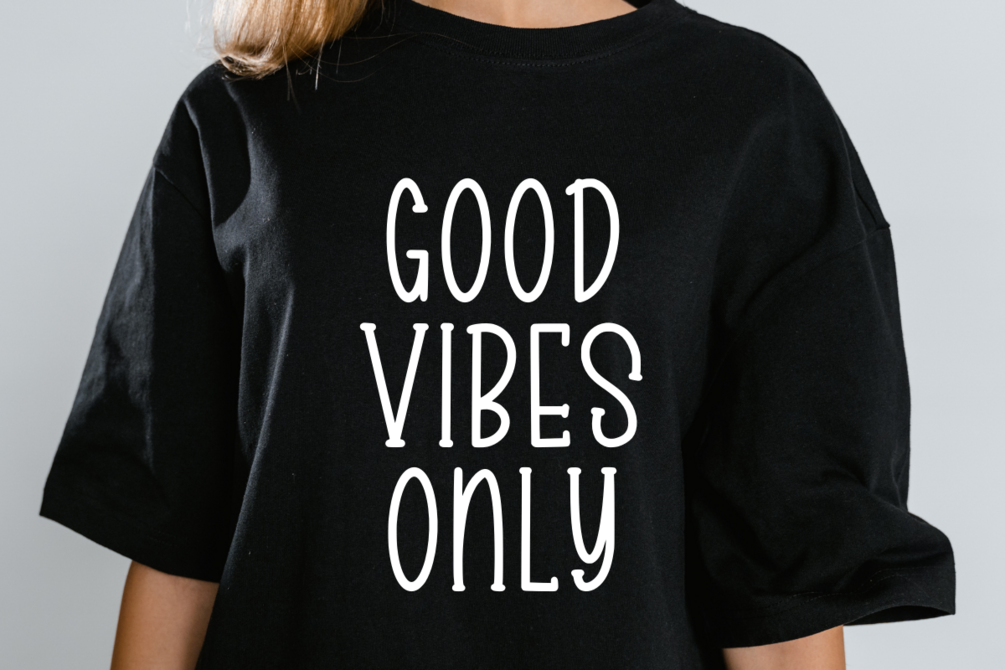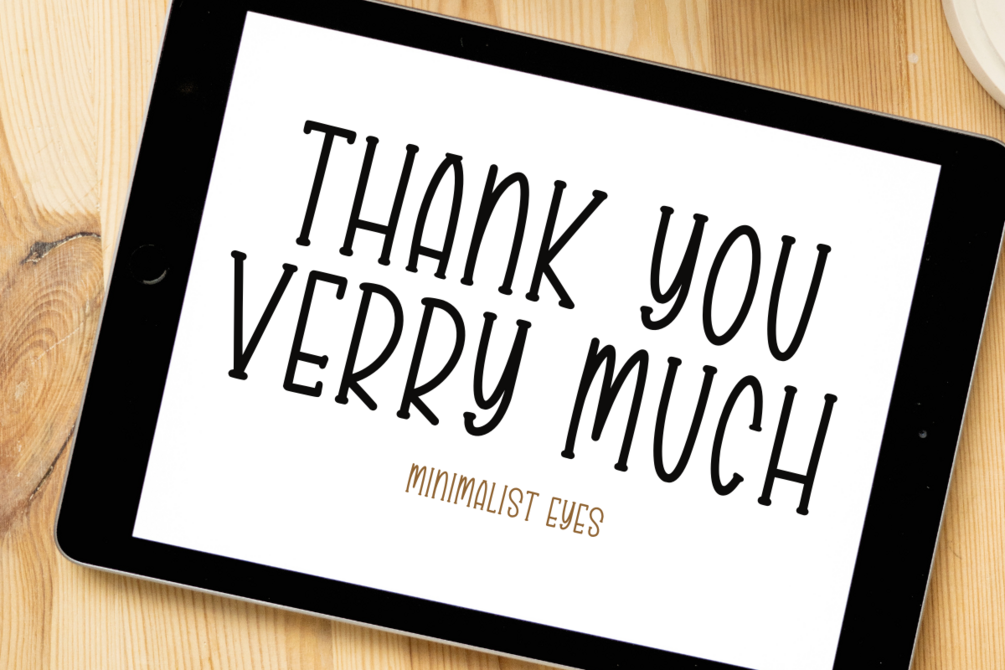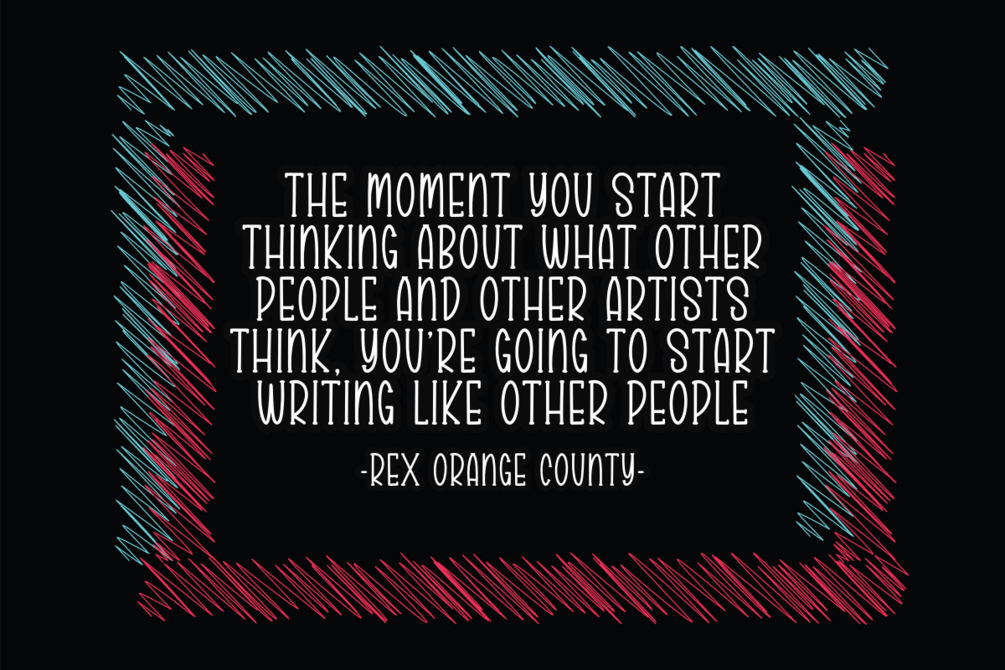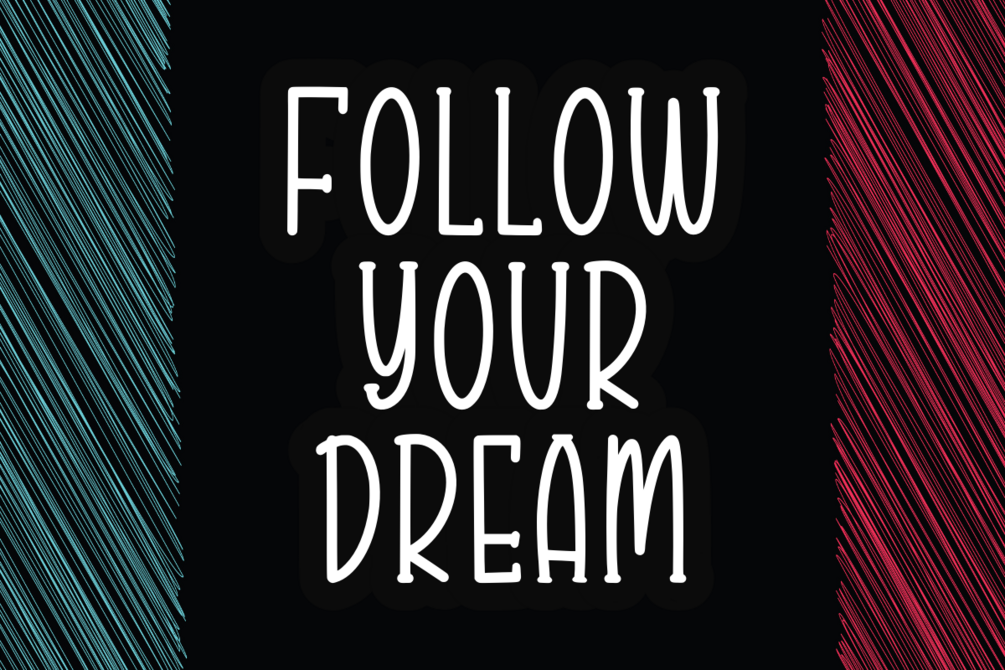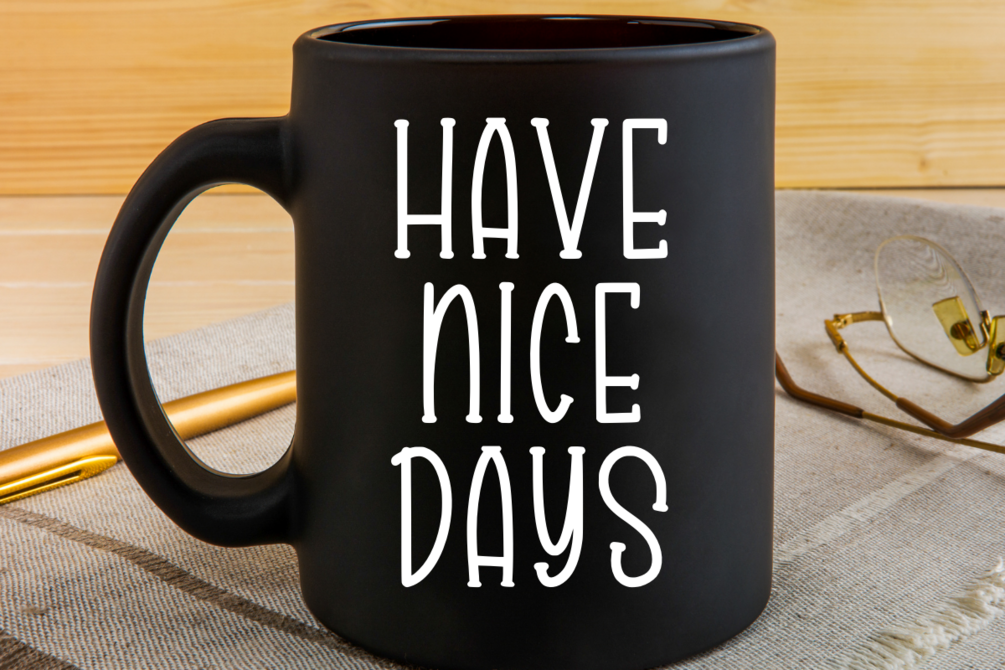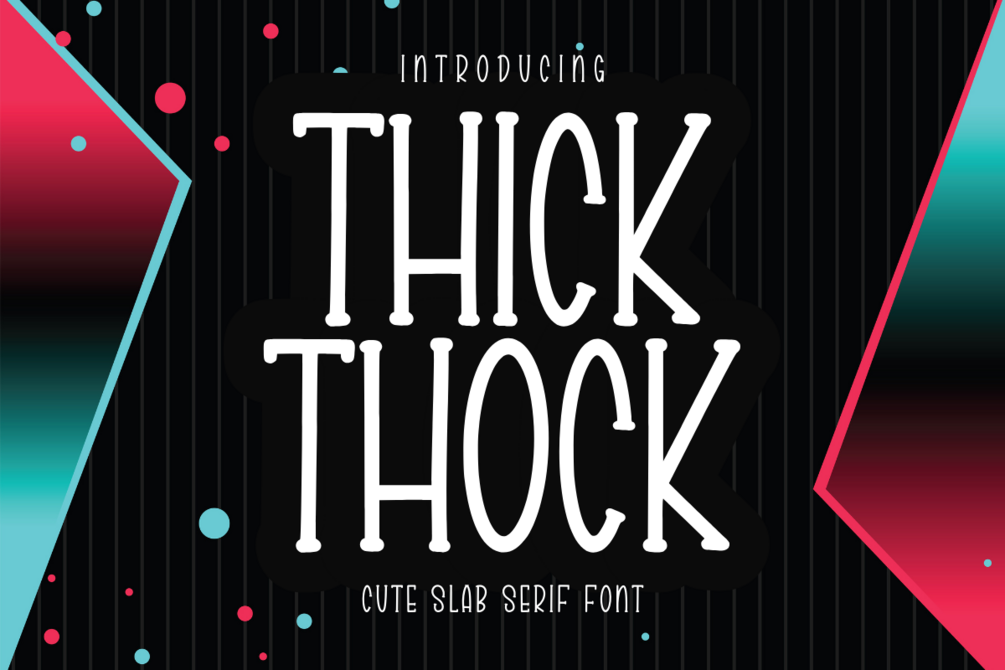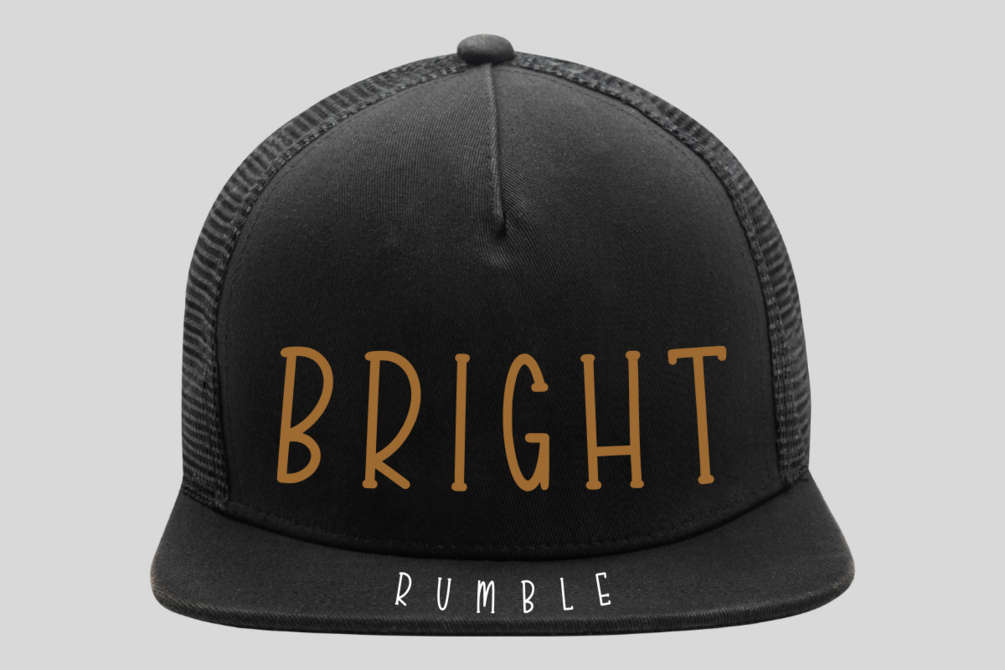
Thick Thock - Cute Slab Serif Font
Thick Thock is a thick and playful slab serif font. The wide characters and chunky serifs make this font ideal for eye-catching designs. You can use it for headlines, poster, packaging, merchandise, quotes, t-shirt typography, banners, product labels, and many more.